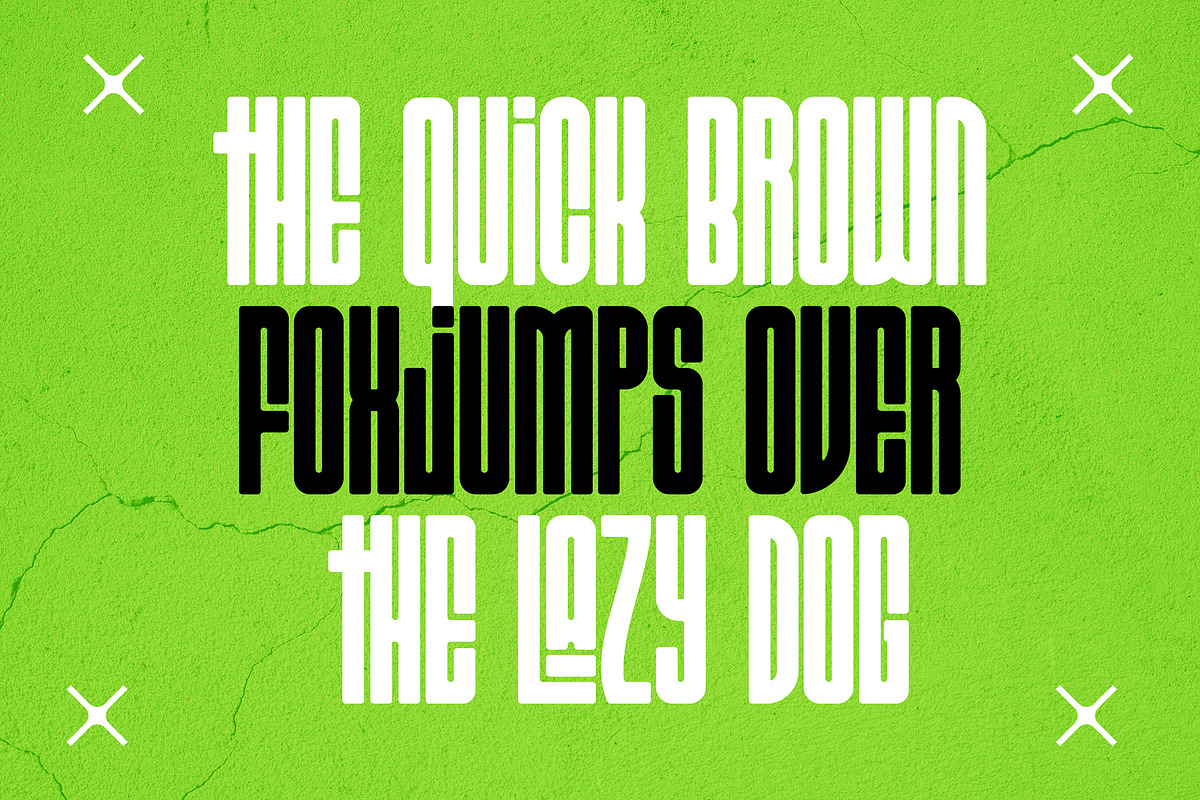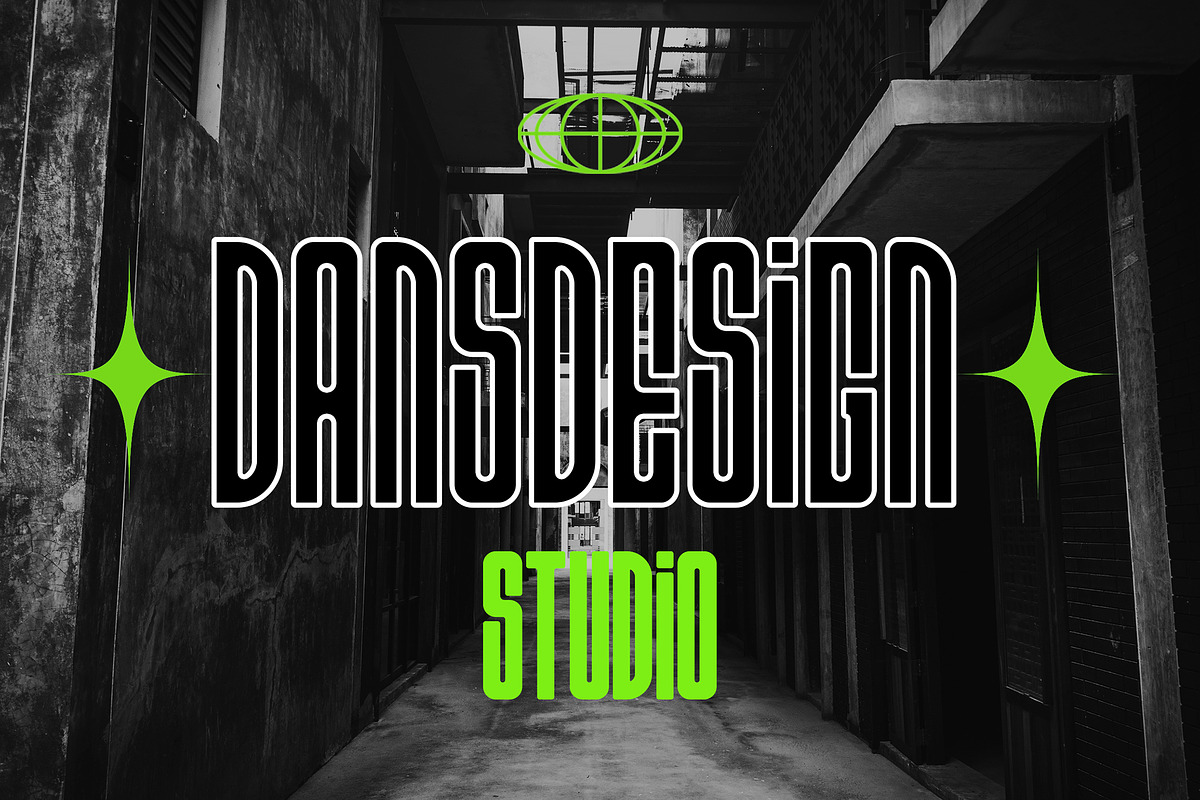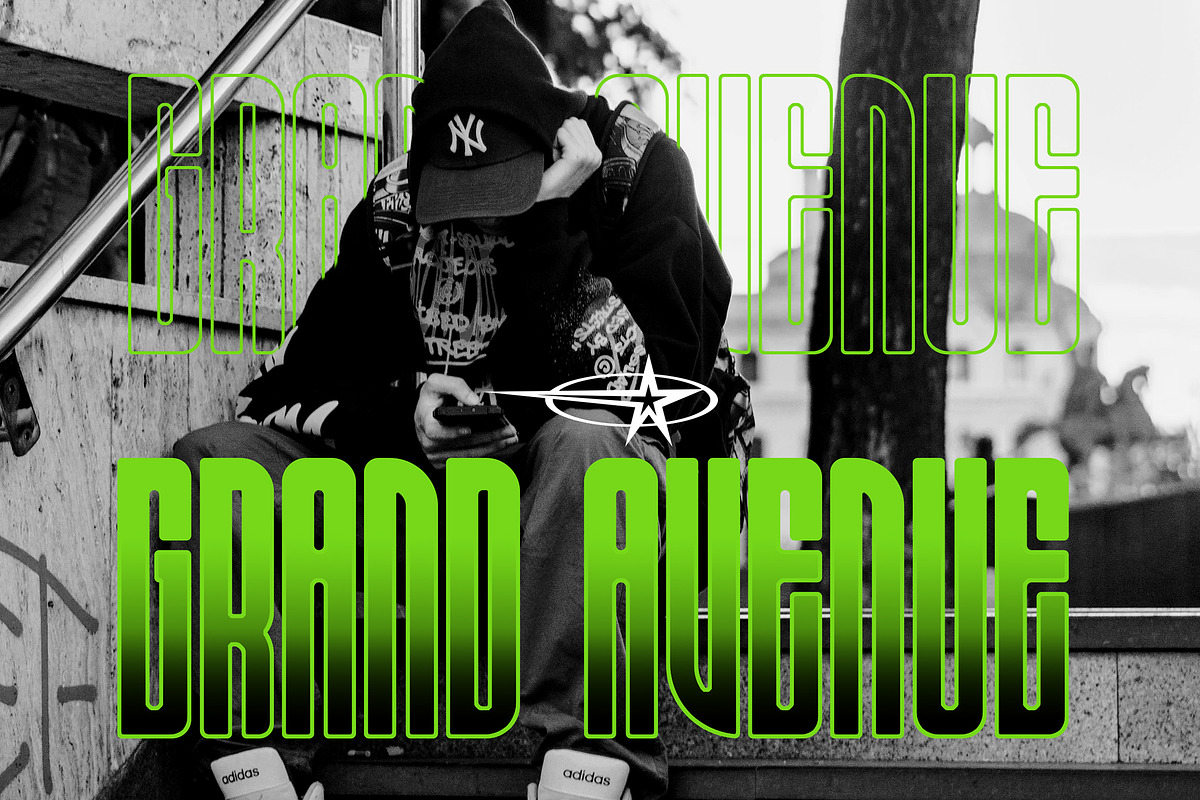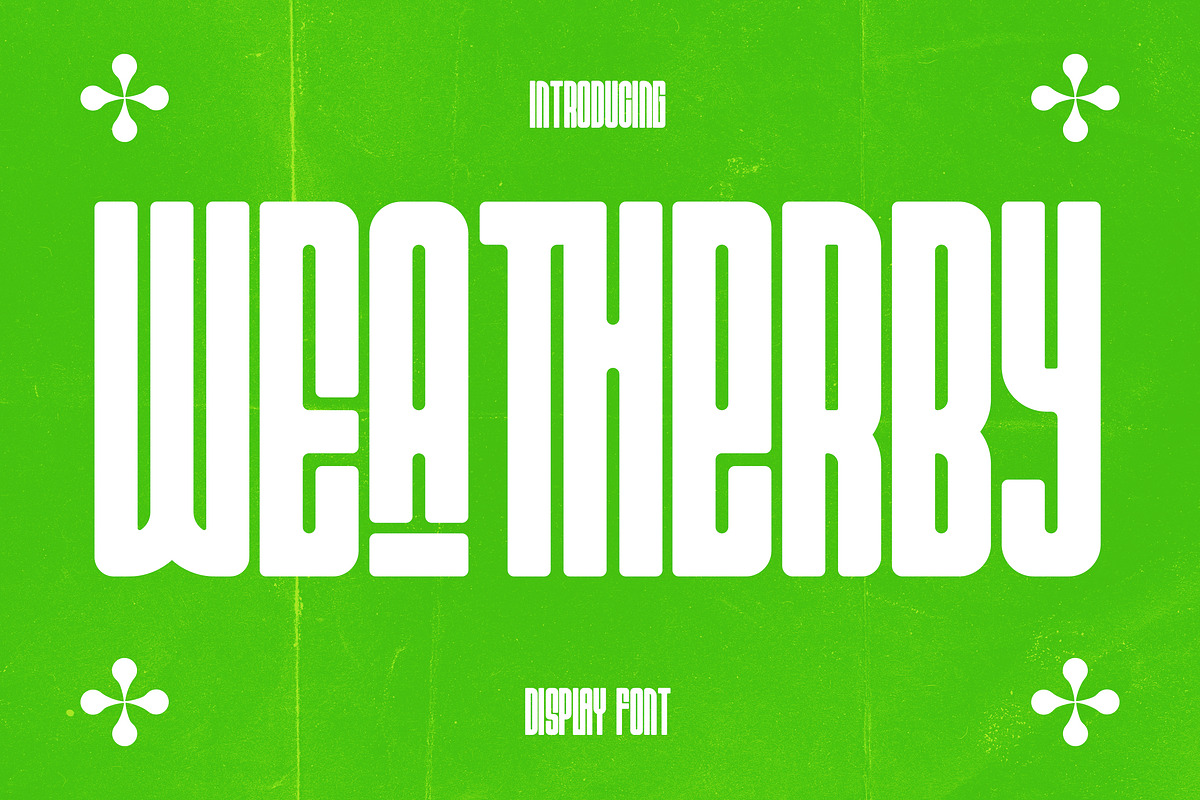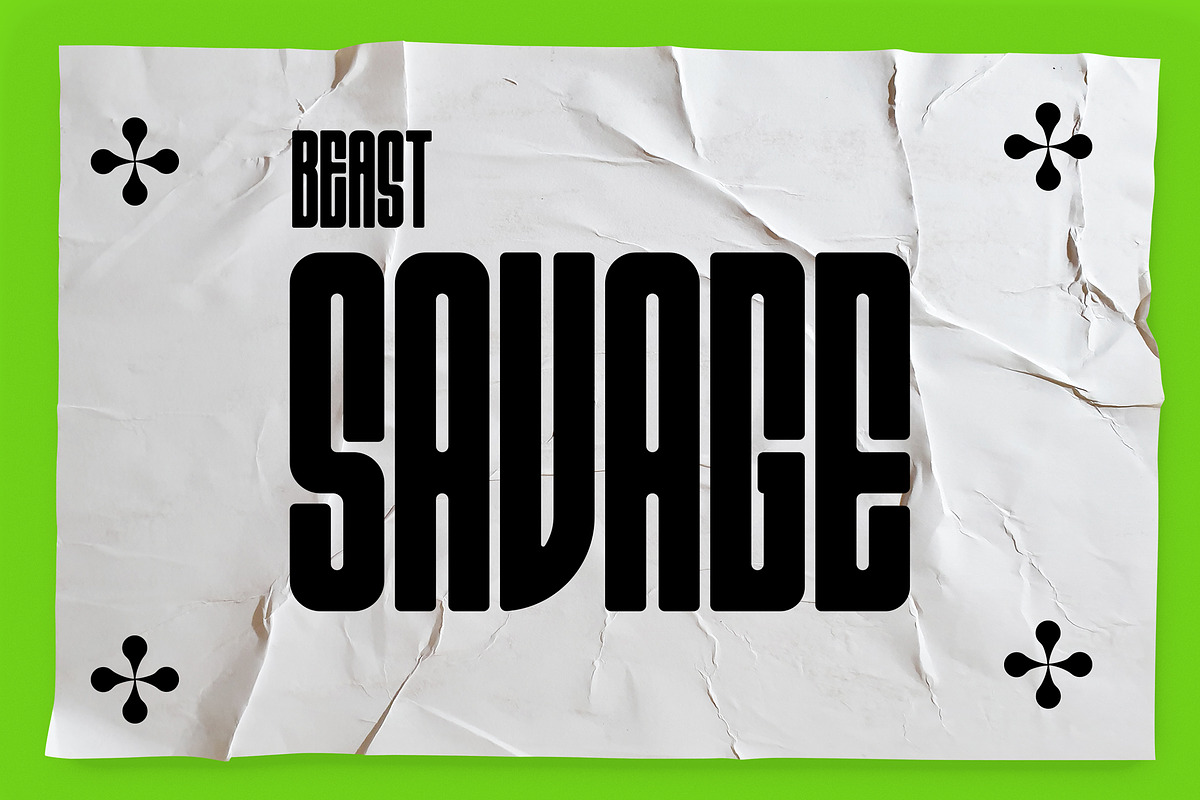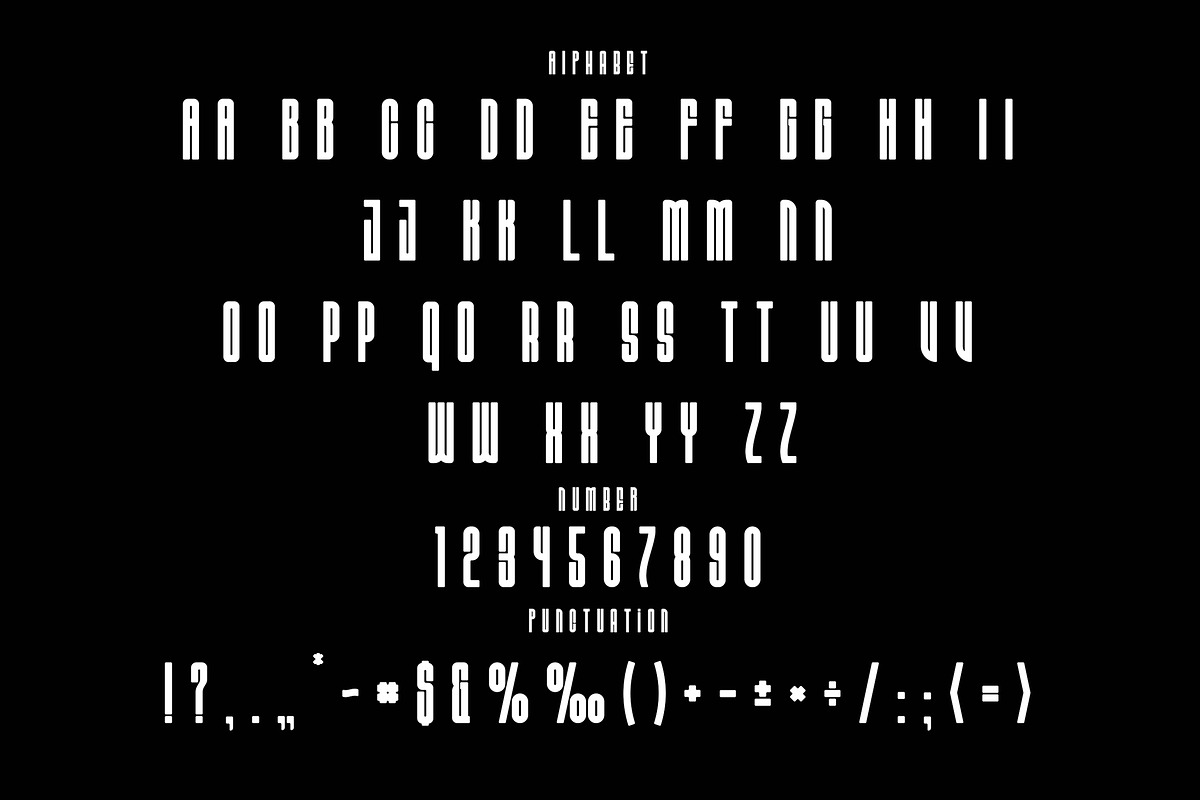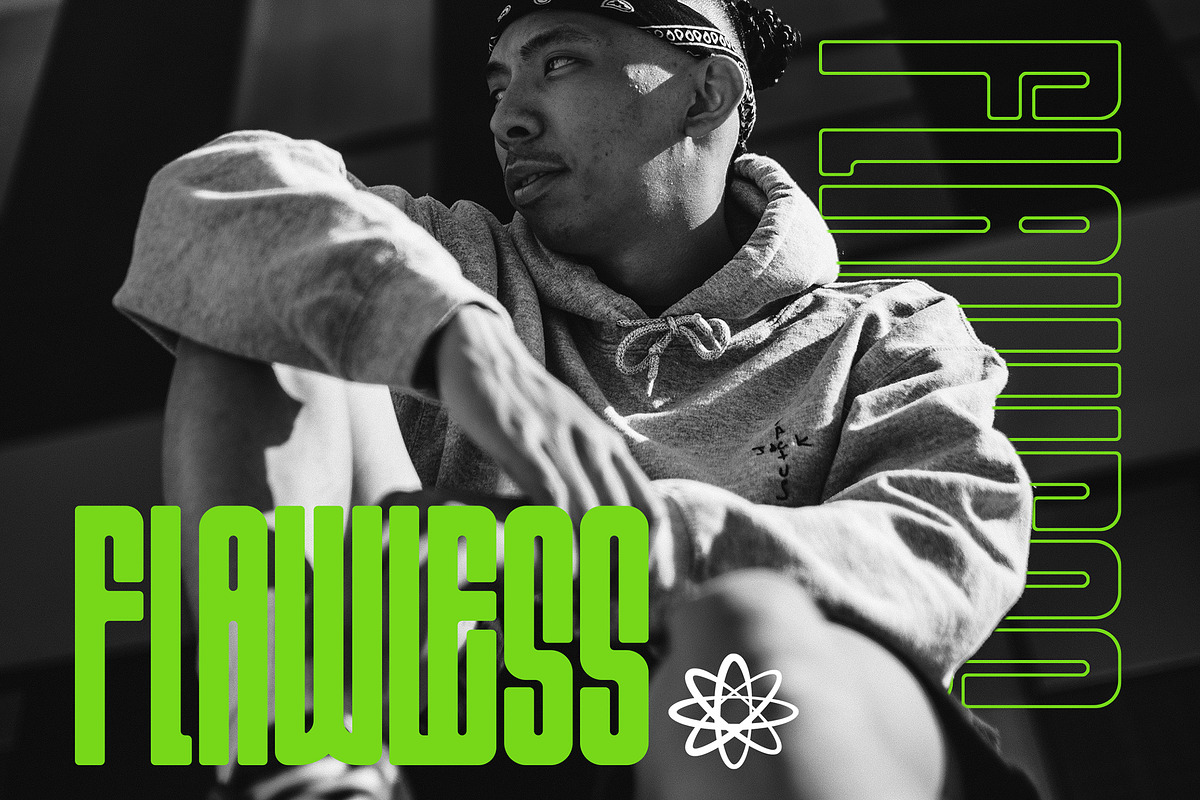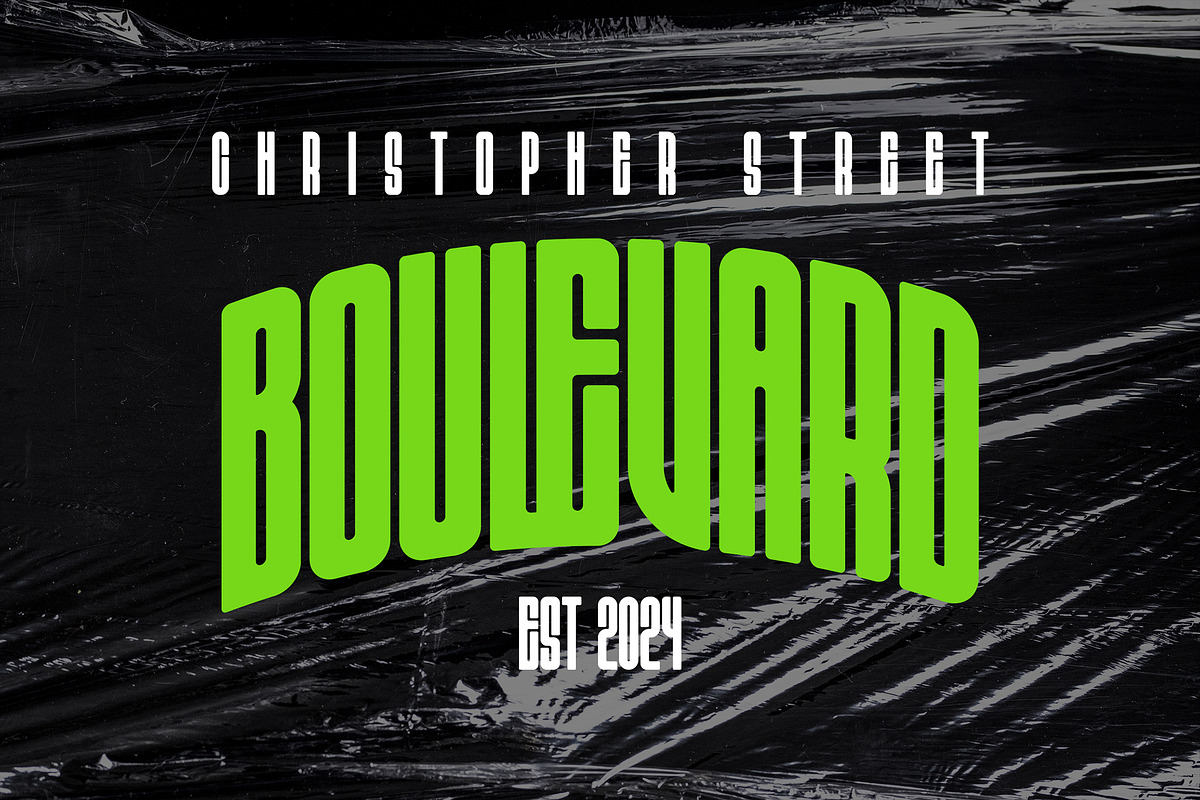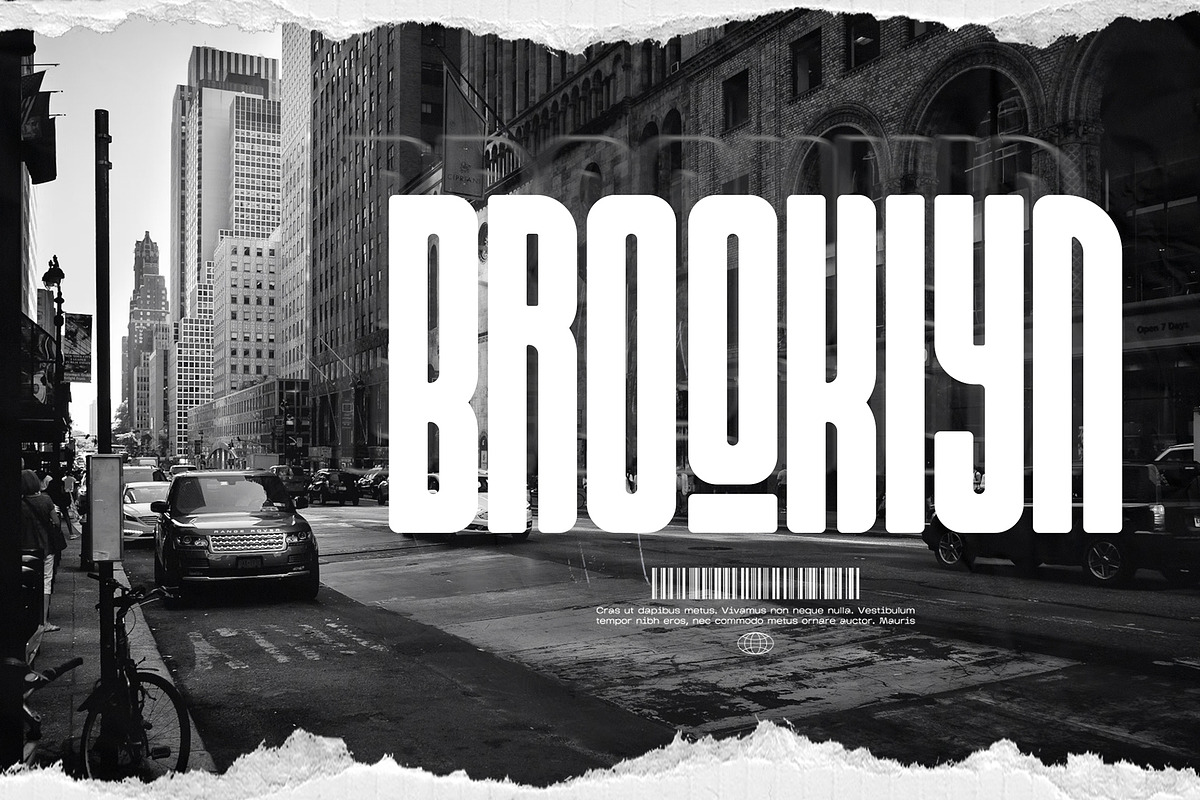
Wea Therby Futuristic Technology Y2k
Wea Therby Futuristic Technology Y2k Display Font highly detailed and slick Blackletter font. It will be a great choice for beautiful cyberpunk futuristic designs, sports business branding, logos, vintage designs, films, posters, clothing, illustrations and more.